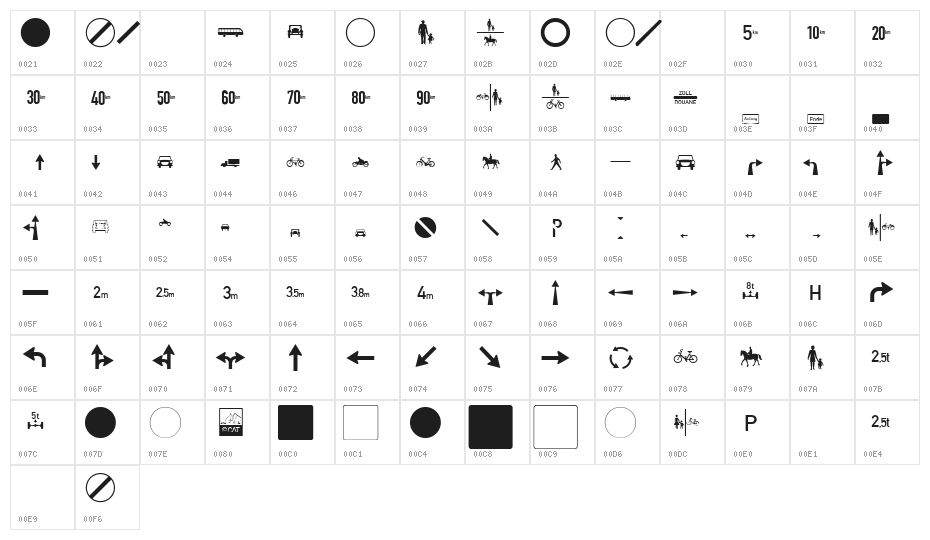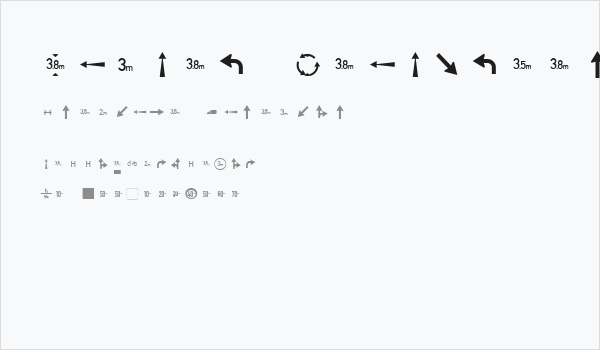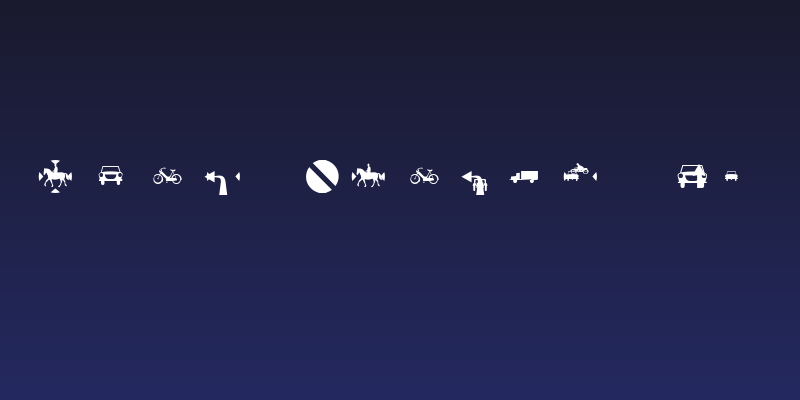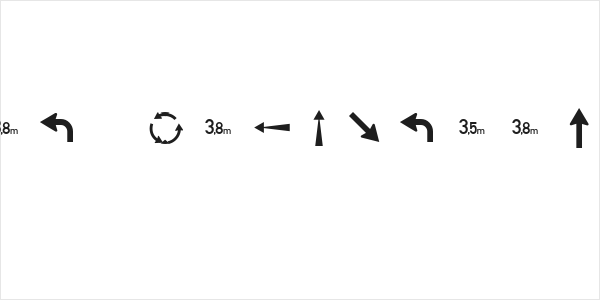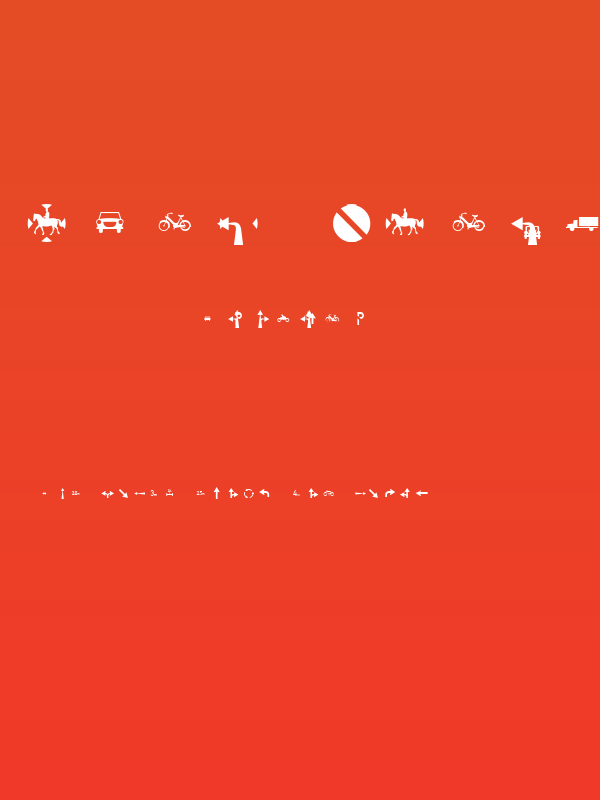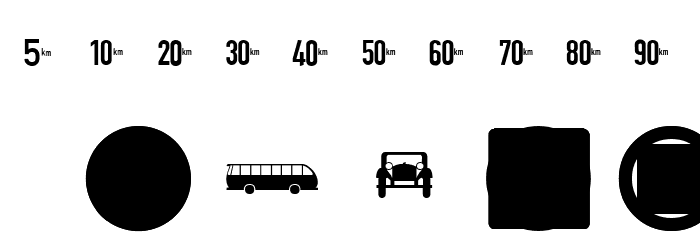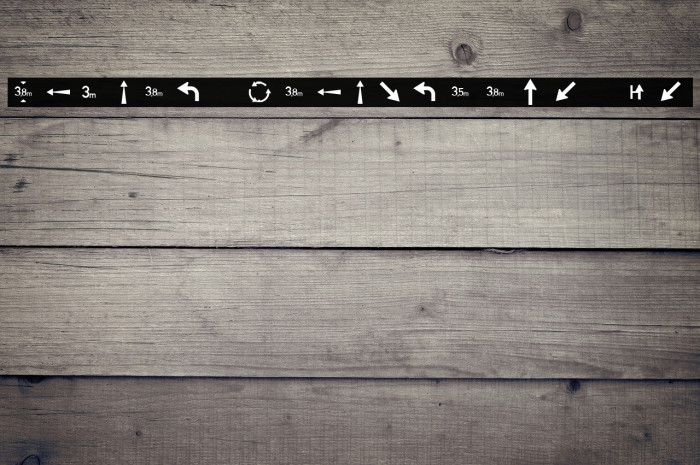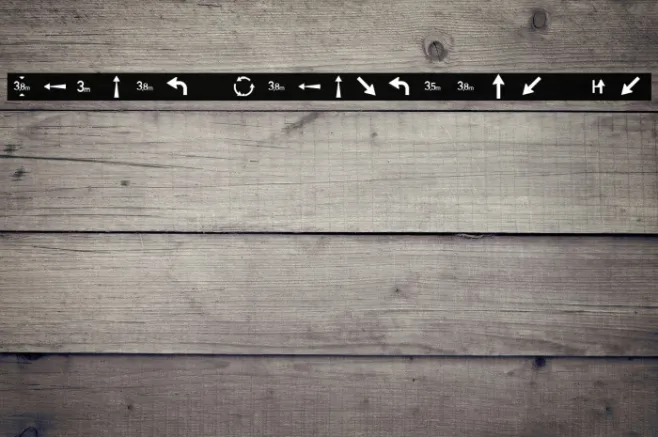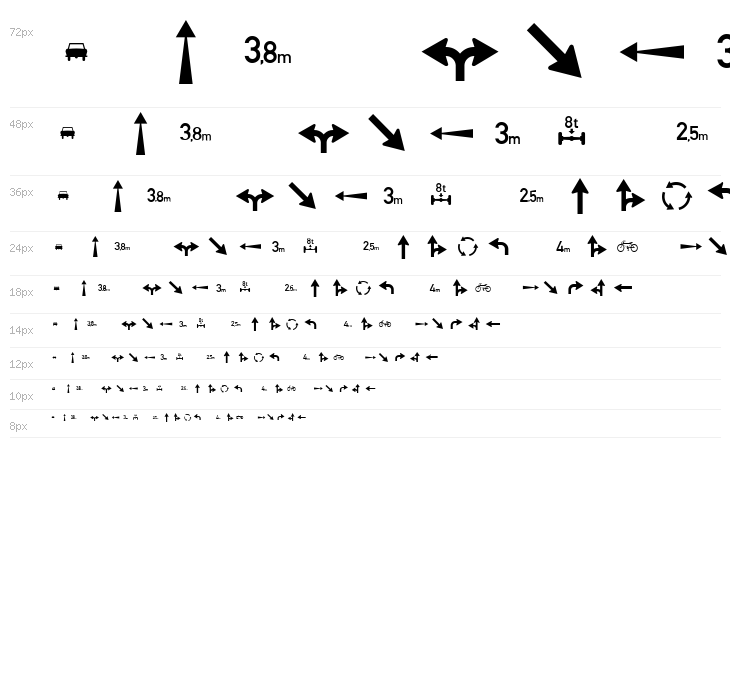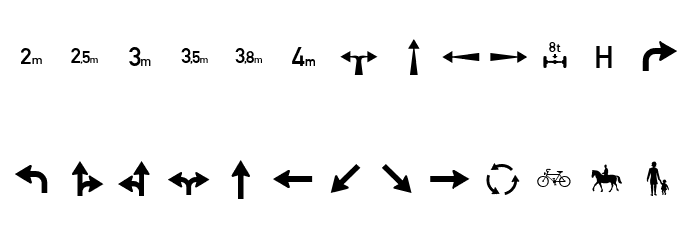
Zeichen Zweihundert Alt Font
Zeichen Zweihundert Alt Description
A collection of bold, simplified pictograms and numerals designed for road signage, featuring arrows, vehicles, pedestrians, and measurement indicators. The glyphs are highly legible, geometric, and optimized for quick recognition at a distance.
| Overall Style | Functional, Modern, Minimalist |
| Use Case | Signage, Icons, Instructional graphics |
| Proposed Projects | Road signs, wayfinding systems, transportation maps, instructional graphics. |